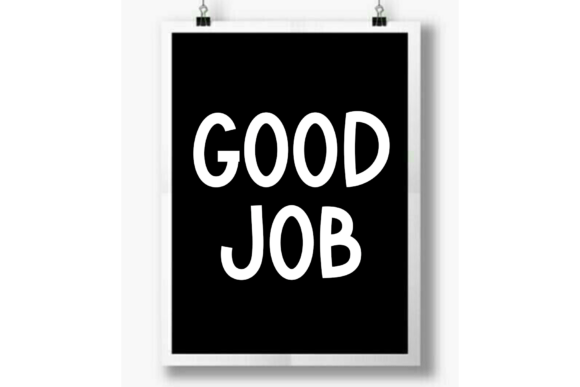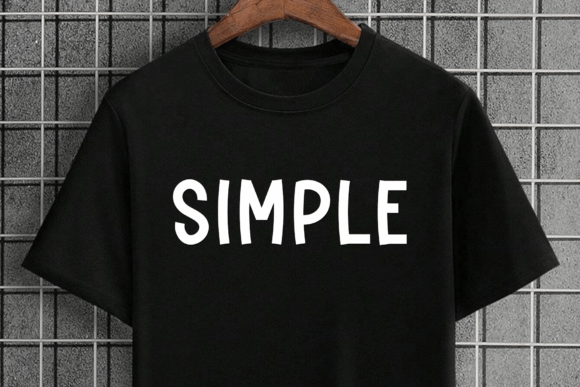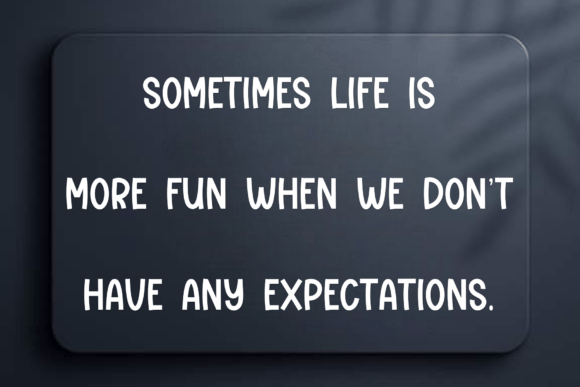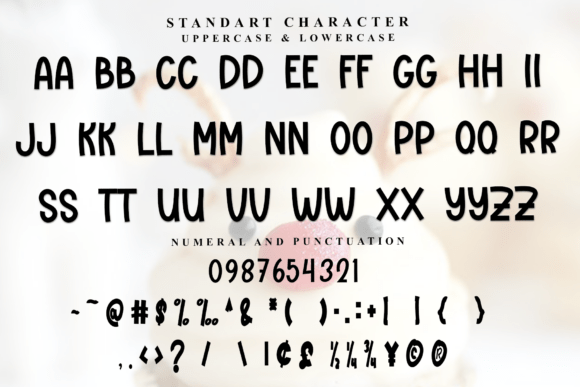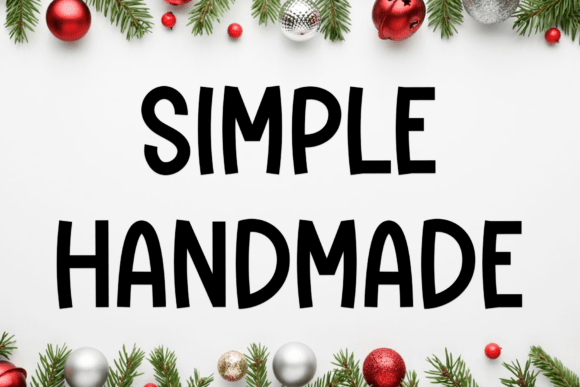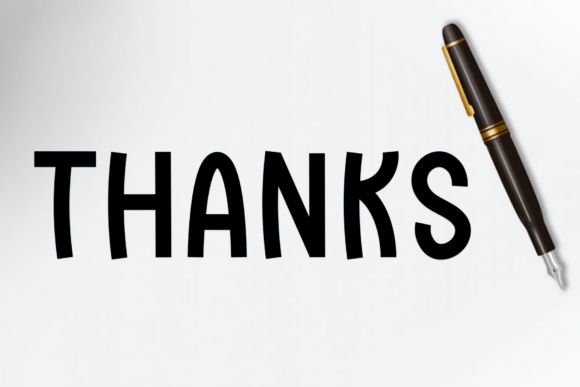
Discover the Magic of Goodtime Font
Have you ever stumbled upon a font that makes you feel like you’ve discovered a treasure trove of creativity? For designers, that moment is what makes all the late nights and early mornings worth it. It’s the thrill of bringing an idea to life, and Goodtime Font is here to take that excitement to the next level.
Goodtime Font is a beautiful and eye-catching typeface that’s designed to add a soft, unique touch to your designs. With its distinctive strokes and varied characters, it’s perfect for a wide range of creative projects, from crafts to design work. Whether you’re working on a Windows or open-source platform, Goodtime Font is compatible and ready to elevate your designs.
Goodtime Font Key Features
- Font Family: Goodtime Font is a sans-serif typeface designed to evoke a sense of nostalgia and playfulness.
- Character Set: Supports a wide range of languages, including Latin, Cyrillic, and Greek scripts, with over 1,000 glyphs.
- Unique Characteristics: The Goodtime Font features a unique blend of rounded and geometric shapes, creating a friendly and approachable aesthetic.
Goodtime Font Review
I’ve had the chance to work with Goodtime Font, and I must say, it’s a unique choice. ✨ The playful, vintage vibe it brings to a design is undeniable. It’s perfect for adding a touch of nostalgia or whimsy to your project.
Some of the strengths of Goodtime Font include:
- ✨ Distinctive flair: It’s not your run-of-the-mill font, and that’s what makes it so charming.
- ✨ Great for creative projects: If you’re working on a design that needs a bit of personality, Goodtime Font is a great choice.
- ⚠️ Limited versatility: Goodtime Font might not be the best choice for projects that require a clean, minimalist aesthetic.
- ⚠️ May not be legible at small sizes: I’ve found that Goodtime Font can be a bit tricky to read when it’s reduced to smaller font sizes.
Overall, I’d say Goodtime Font is a solid choice for the right project. If you’re looking to add some personality and whimsy to your design, it’s definitely worth considering. Just be mindful of its limitations, and you’ll be good to go.
The Goodtime Font is suitable for a variety of designs, including:
- Social media posts and ads
- Marketing materials and flyers
- Wedding invitations and event materials
- Personalized gifts and merchandise
Alternatives to Goodtime Font